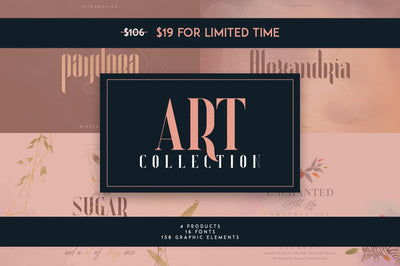
Art Collection | 16 Fonts + Extra
In this collection You will find 17 handpicked bestseller fonts and 158 graphic elements perfect for branding projects, home-ware designs, product packaging, wedding invitations, magazine headers – or simply as a stylish text overlay to any background image.
• Uppercase,lowercase,numeral,punctuation & Symbol
• 82 Alternative Glyphs
• Ligatures
• Multilingual
• Uppercase,lowercase,numeral,punctuation & Symbol
• Multilingual
• 2 Versions
• Regular
• Lines
• Outline
• Rough
• Swashes
Sugar serif family
• Sugar Regular
• Sugar Rough
• Sugar Outline
• Sugar Halfcolor
• Sugar Halfcolor two
• Multilingual support
Spice script
• Spice script
• Multilingual
• Ligatures
Spice font contains following ligatures:
ab ll il it am an ul at al th nt ct cl ol ot rr om on oo of op ch ck el ep et ee re sh sl ss nn ff st
Addition elements